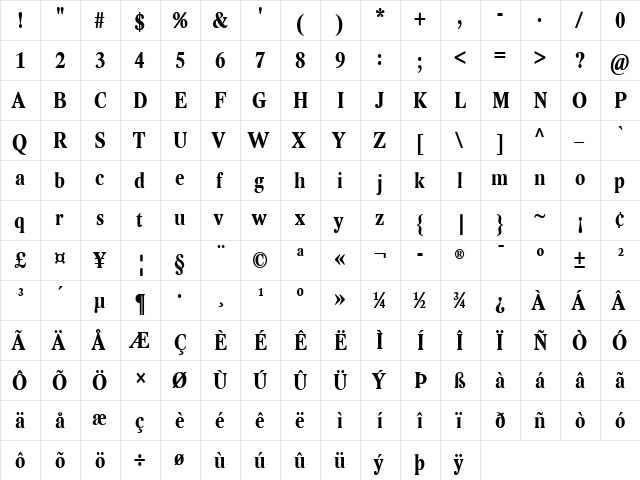
Lido STF Cond Bold
Design Context for Lido STF Cond Typeface
Lido STF Cond offers clean, dependable letterforms without strong stylistic allegiance, making it a practical choice for designers who need flexibility. Its bold stroke weight gives it real presence on the page. The condensed width makes it efficient for tight spaces without sacrificing legibility.